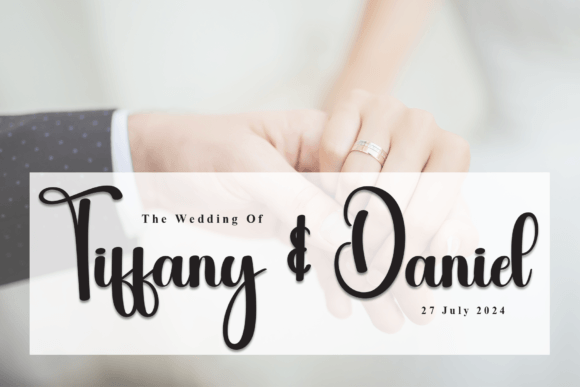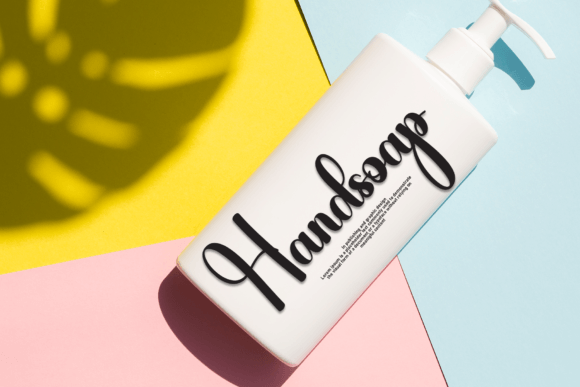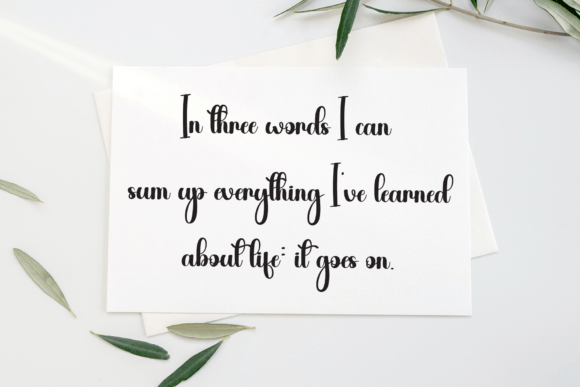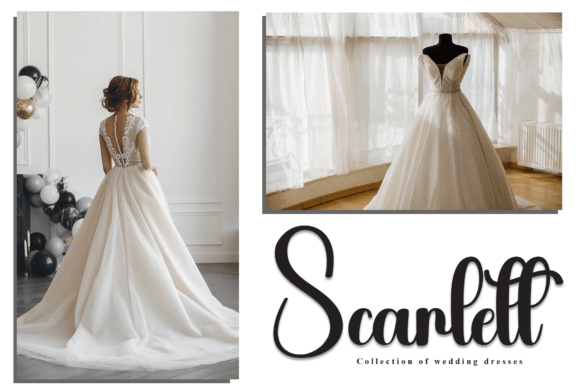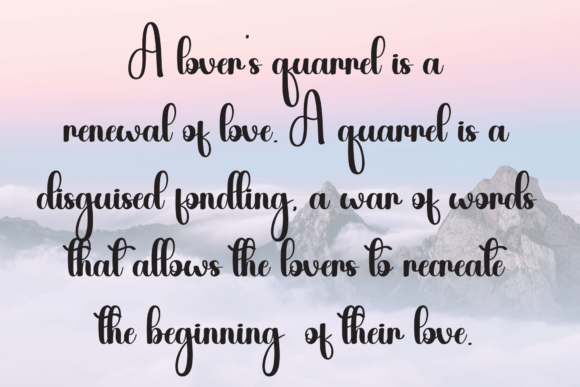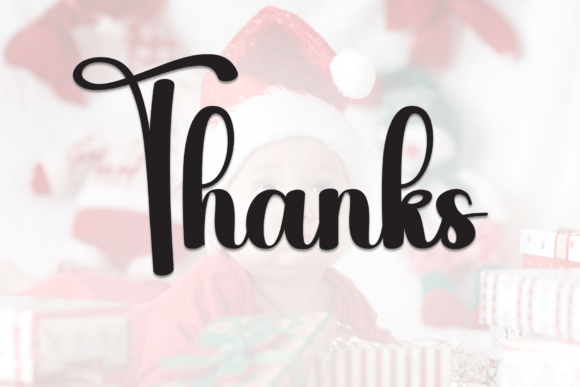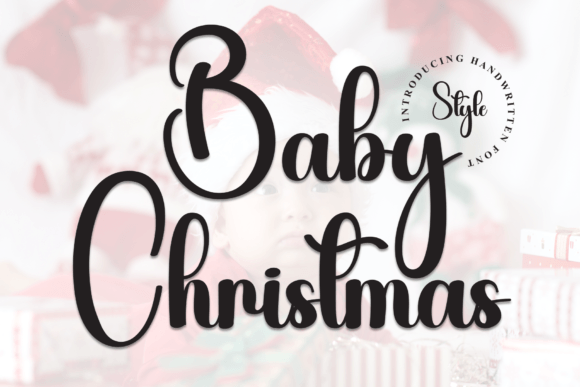
Baby Christmas Font: The Perfect Addition to Your Holiday Designs
Are you looking for a font that captures the essence of the holiday season? Do you want to add a touch of sweetness and friendliness to your designs? Look no further than the Baby Christmas Font! This charmingly distinctive handwritten display font is perfect for enhancing your wedding invitations, greeting cards, or any designs that crave a dash of fun.
What is Baby Christmas Font?
Baby Christmas Font is a unique and adorable handwritten display font that is designed to bring a sense of joy and festivity to your designs. With its delicate and whimsical strokes, this font is sure to capture the hearts of your audience. Whether you’re designing wedding invitations, greeting cards, or holiday-themed crafts, Baby Christmas Font is the perfect choice.
Key Features of Baby Christmas Font
- Charmingly distinctive handwritten display font: Baby Christmas Font features a one-of-a-kind handwritten design that sets it apart from other fonts.
- Sweetness and friendliness in every stroke: This font is designed to evoke feelings of warmth and friendliness, making it perfect for holiday designs.
- Exceptionally adorable yet versatile: Baby Christmas Font is both cute and versatile, making it suitable for a wide range of design applications.
- Delightful touch: This font adds a touch of whimsy and fun to your designs, making them stand out from the crowd.
- Authentically personal: With Baby Christmas Font, you can add a personal touch to your designs that will resonate with your audience.
Uses for Baby Christmas Font
Baby Christmas Font is perfect for a variety of design applications, including:
- Wedding invitations: Add a touch of sweetness and romance to your wedding invitations with Baby Christmas Font.
- Greeting cards: Create festive and fun greeting cards for the holiday season with this charming font.
- Holiday crafts: Use Baby Christmas Font to add a personal touch to your holiday crafts, such as decorations, gift tags, and more.
- Social media graphics: Add a dash of fun and festivity to your social media graphics with Baby Christmas Font.
Why Choose Baby Christmas Font?
There are many reasons why Baby Christmas Font stands out from other fonts. Here are just a few:
- Unique design: Baby Christmas Font features a one-of-a-kind design that will set your designs apart from the crowd.
- High-quality: Baby Christmas Font is a high-quality font that is designed to produce crisp and clear results.
Tips for Using Baby Christmas Font
Here are a few tips for getting the most out of Baby Christmas Font:
- Use it sparingly: Baby Christmas Font is a bold and eye-catching font, so use it sparingly to avoid overwhelming your design.
- Pair it with other fonts: Experiment with pairing Baby Christmas Font with other fonts to create a unique and interesting design.
- Experiment with colors: Try out different colors and textures to add depth and interest to your design.